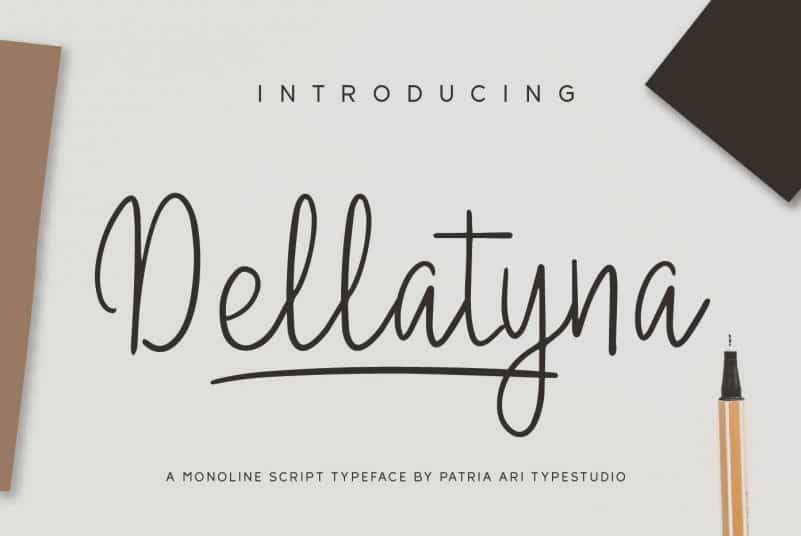
Dellatyna Font
Dellatyna Handwritten Font is a monoline script typeface with multilingual accent and also swashes. This font can use to support your project to make design more beautiful. Dellatyna suitable for book cover, merchandise, poster, title, quotes, and many more!